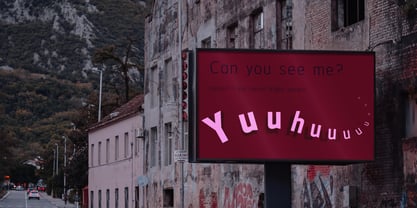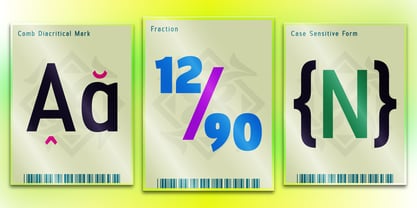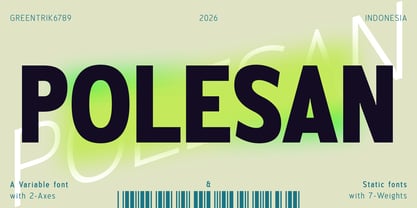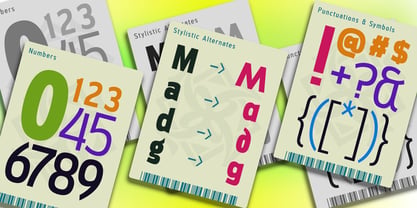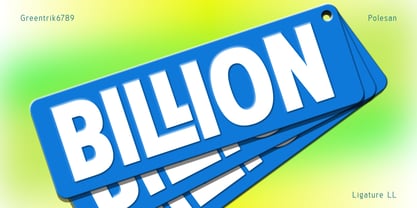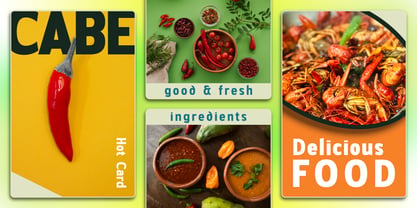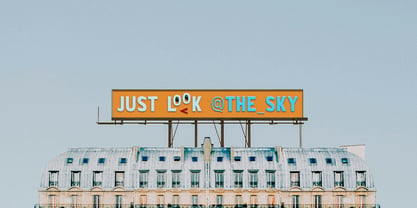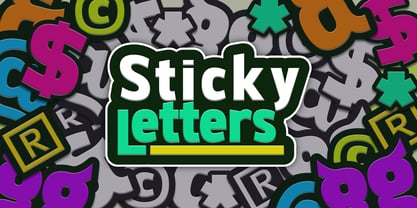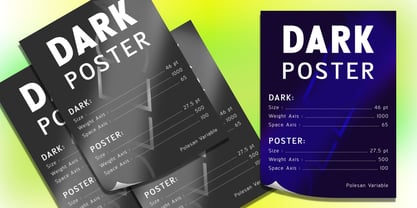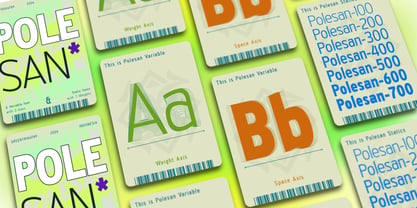
Polesan
The Polesan Font Family was designed by Tri Kuncoro and published by Greentrik6789. Polesan contains 8 styles and family package options. More about this family
Polesan is a contemporary sans serif built for clarity and impact. Clean, bold, and confidently structured, it delivers strong presence without losing versatility. Available as a variable font with Weight and Space axes, Polesan gives you precise control over density and rhythm. It also includes 7 static weights for a smooth, reliable workflow. Packed with essential OpenType features. Ready for professional branding systems and modern visual identities. Shines in branding, posters, packaging, social media graphics, food & lifestyle campaigns, and contemporary editorial layouts. It carries a bold voice without overpowering your message. Whether you’re building a striking logo, a flexible design system, or a high-impact campaign, Polesan works hard so your ideas stand out effortlessly. Refined. Flexible. Distinctly modern. That’s Polesan.
I'm Tri Kuncoro, a type designer from a small town in Central Java, Indonesia. As the founder and creative mind behind Greentrik6789, I specialize in crafting bold, expressive display fonts tailored for contemporary applications — from logos and posters to impactful branding. My recent releases, such as Super Car (July 19, 2022) and Super Car Variable (November 19, 2024), showcase my commitment to strong aesthetics and versatile functionality, incorporating cutting-edge variable font technology. Other standout creations like Standhill, Moggen, Rise, and Ragiel exemplify my unwavering dedication to form, rhythm, and visual impact, making Greentrik6789 a unique player in the type design industry.